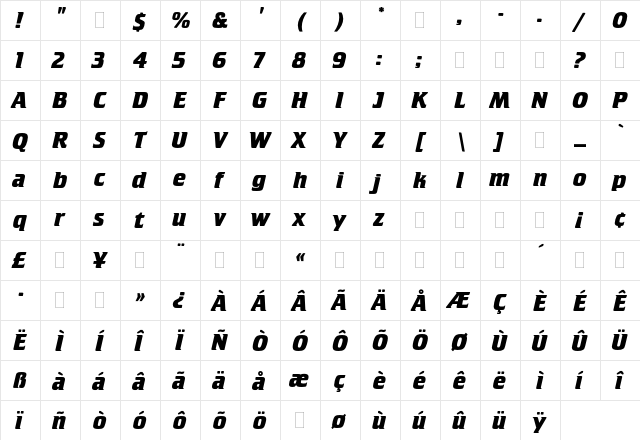
Crillee Bold Italic Plain
Design Context for Crillee Bold Italic Typeface
Crillee Bold Italic is a composed and adaptable typeface that performs quietly and consistently across a wide range of design contexts. The slanted form adds forward momentum and visual energy. The heavy weight commands attention and anchors typographic hierarchies.
Pro Tip: Use Crillee Bold Italic for emphasis, pull quotes, and subheadings where its slanted energy can add rhythm to the layout.